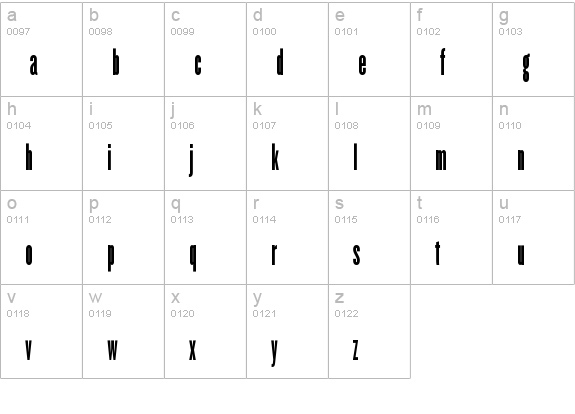
Introducing the mesmerizing Knockout-HTF66-FullFlyweight font, a stunning typeface that effortlessly combines elegance and modernity. With its sleek lines and refined curves, this font is perfect for adding a touch of sophistication to any design project. The Knockout-HTF66-FullFlyweight font features a unique blend of boldness and delicacy, making it a versatile choice for both headers and body text. Its clean and legible characters ensure maximum readability, while its distinctive style sets it apart from the crowd. One of the most remarkable aspects of the Knockout-HTF66-FullFlyweight font is that it is freely available to download at FontsMarket.com. This means that you can easily access this exceptional font without any cost, making it an ideal choice for designers, creatives, and enthusiasts alike. Whether you're working on a branding project, editorial design, website, or any other creative endeavor, the Knockout-HTF66-FullFlyweight font will effortlessly elevate your work to new heights. Its versatility and timeless appeal make it suitable for a wide range of applications, ensuring that your designs will always stand out from the rest. Experience the beauty and flexibility of the Knockout-HTF66-FullFlyweight font today. Download it for free at FontsMarket.com and unlock a world of possibilities for your design projects.